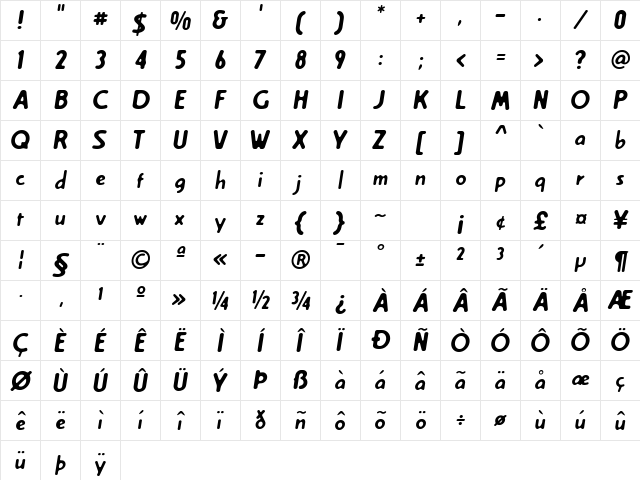
Creambold Regular
Design Context for Creambold Typeface
Creambold takes a measured approach to typography — its balanced proportions and neutral character make it a reliable workhorse for both digital and print work. Its bold stroke weight gives it real presence on the page.